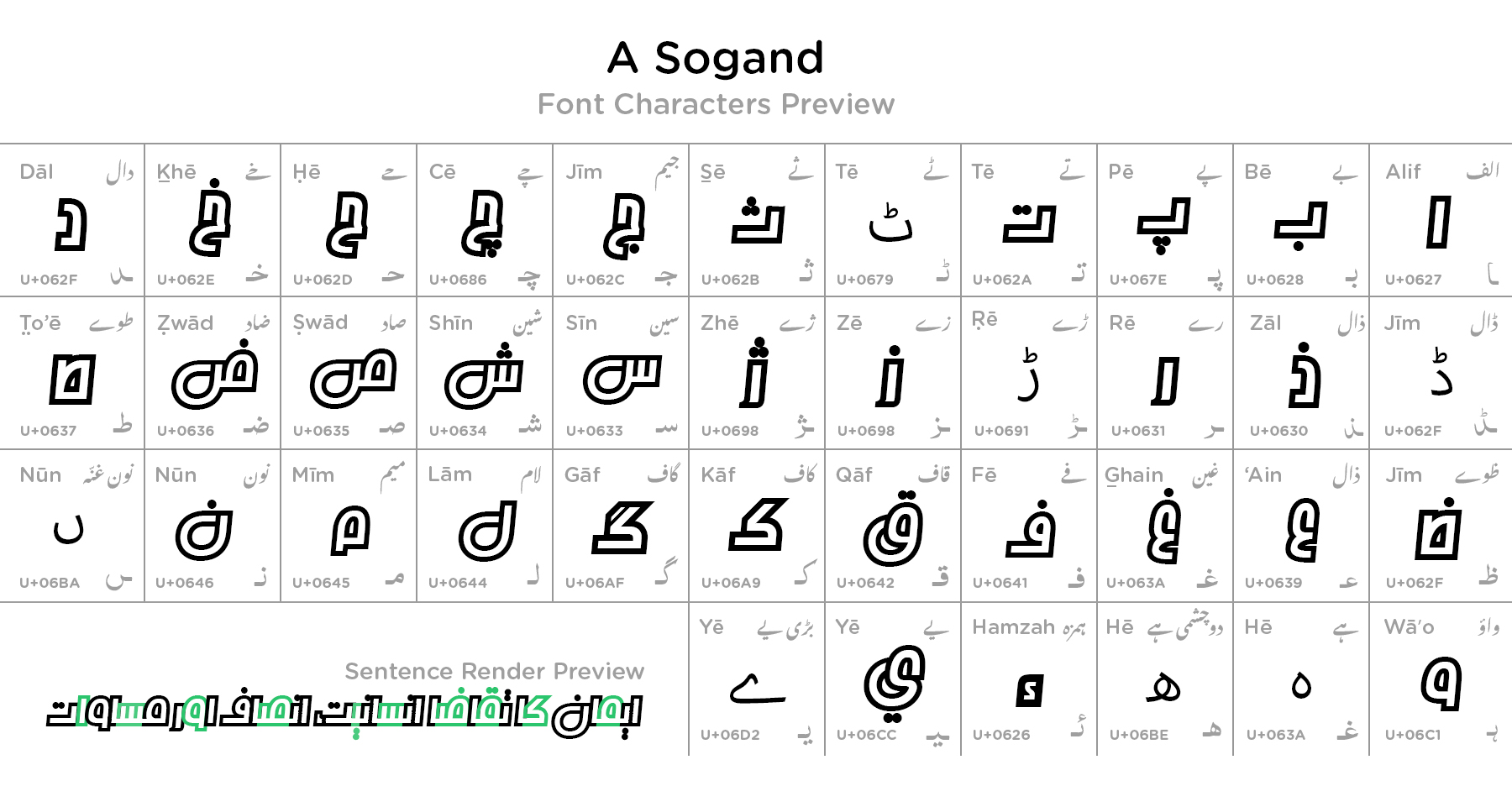
A Sogand, released to use on October 7, 2017, by the foundry IrFont.ir, offers a unique take on Persian typography. It is a hollow or stencil Persian font crafted in outline style by Hossein Taghizadeh. Letters are made of solid outlines that are hollow from the inside. They are tightly spaced and connected, creating a modern effect. Moreover, the ends are sharp and incomplete, giving it an identity. With 349 characters and 272 glyphs, this unique typeface supports Arabic, Latin, Urdu, and Persian languages to fulfill different multilingual design needs. The font’s letters are tightly spaced and interconnected, creating a contemporary and modern effect. Each letter features sharp corners and wide, slanted edges, contributing to its distinctive identity. Despite offering only one weight, A Sogand finds its use in short texts, excelling in titles, headings, marketing posters, logos, and branding materials.
While this typeface focuses on aesthetic appeal over formal writing, its hollow letters maintain legibility due to its striking and solid strokes. However, at smaller sizes, legibility may be compromised. The font has monospaced and evenly spaced letters, enhancing its readability across various design applications. It is compatible with various Unicode blocks such as Basic Latin, Latin-1 Supplement, Spacing Modifier Letters, Arabic, General Punctuation, Mathematical Operators, Private Use Area, Arabic Presentation Forms-A, and -B, increasing its appeal to designers further.